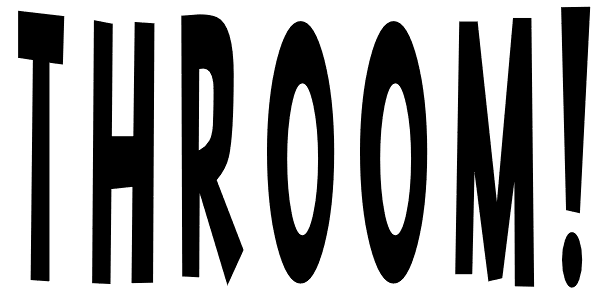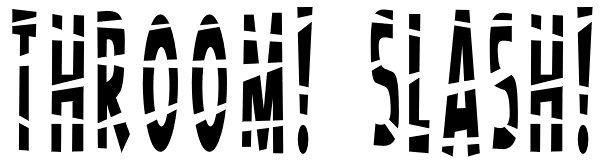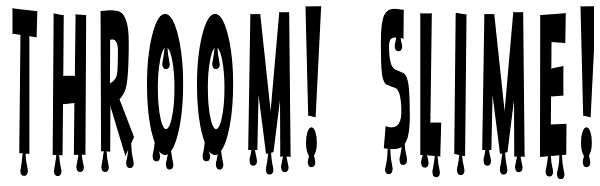
Throom!
Throom! is supposed to be used for comic book effects, but is also suitable for headlines and alike. Comes in 4 different versions: regular, slime! - krunch! and slash! Lowercase letters are placed just a little lower than uppercase, so SwItCh...
Throom!
Throom! Krunch!
Throom! Slash!
Throom! Slime!